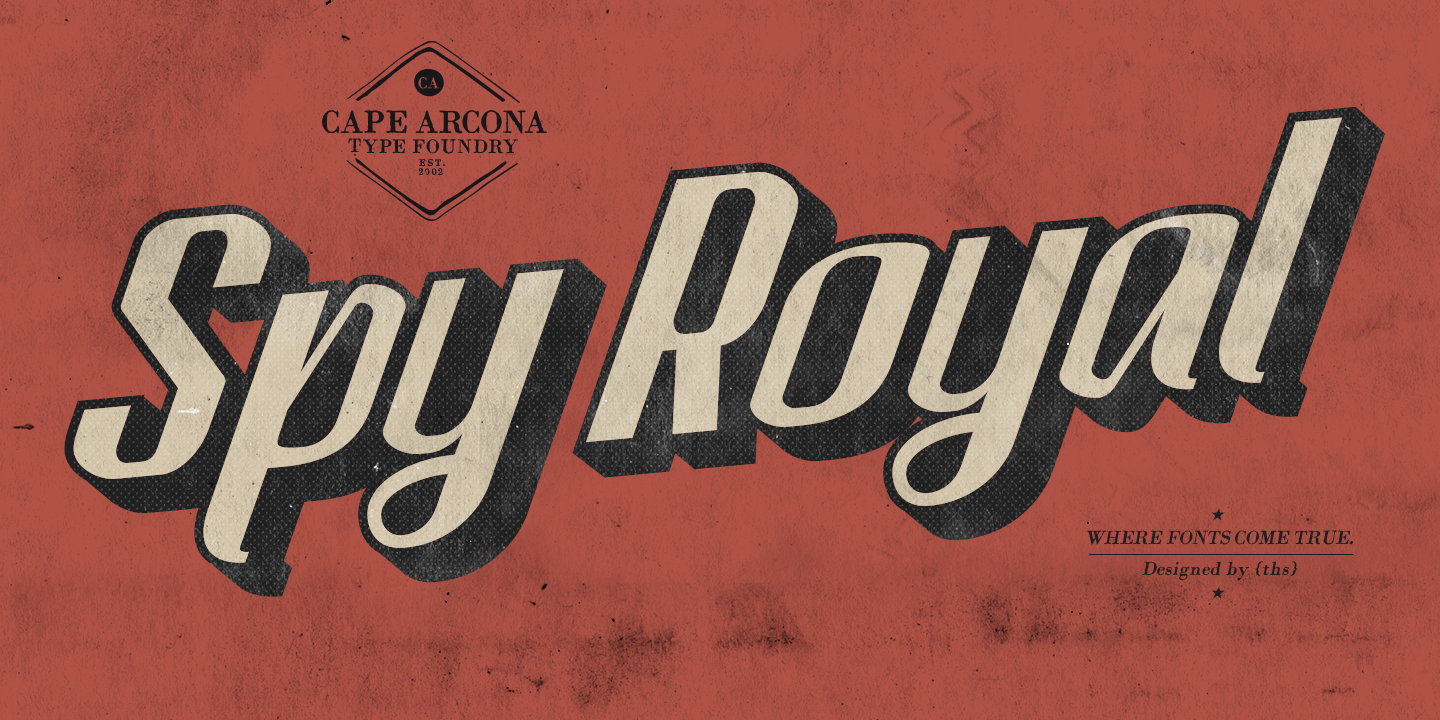
The CA Spy Royal Font is perfect for espionage-themed designs, mystery novel covers, thriller movie titles, gaming interfaces, detective agency branding, luxury spy gadget packaging, secret service communications, and sophisticated surveillance equipment marketing. This intriguing typeface works exceptionally well for projects that require an air of mystery combined with royal elegance.
What makes CA Spy Royal Font exciting is its unique combination of covert sophistication and regal authority. The font features letterforms that blend secretive elegance with commanding presence, creating an atmosphere of intrigue while maintaining readability. Its distinctive character brings both mystery and prestige to any design project, making it ideal for brands that want to convey exclusivity and intelligence.
The CA Spy Royal Font family includes multiple variations: Regular, Bold, Light, Italic, Condensed, and special encrypted-style decorative elements. Each style preserves the font's mysterious royal character while providing designers with flexibility to create compelling compositions that capture attention and convey sophistication.
Ideal for entertainment companies, luxury security firms, and premium lifestyle brands, CA Spy Royal Font Free Download offers designers a tool for creating memorable and intriguing visual communications. The font's distinctive character makes it suitable for both digital and print applications where sophistication meets mystery, ensuring brand recognition while conveying exclusivity and intelligence in every application.